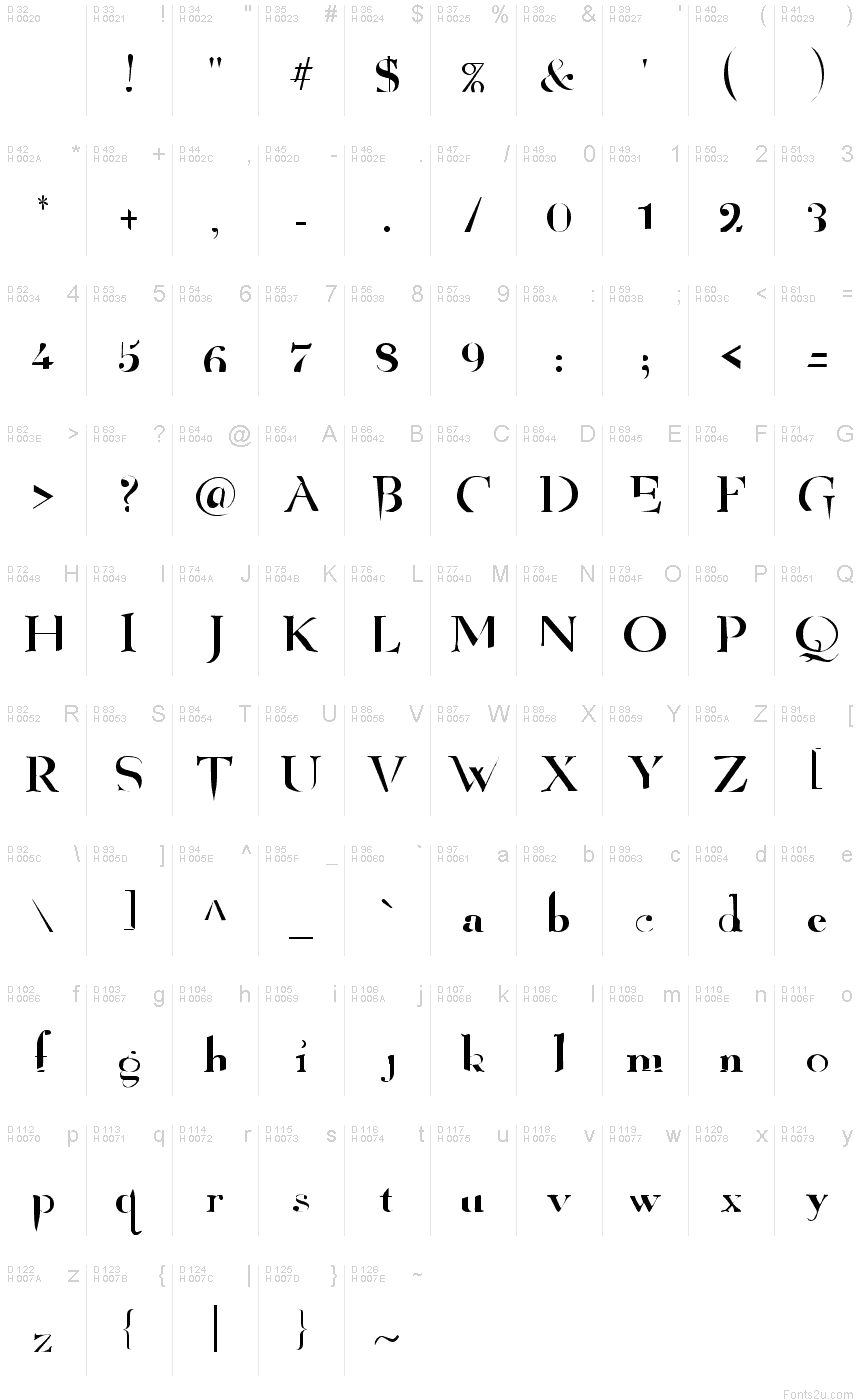
Angelized
Angelized font by ARRF Designs is a free distorted display typeface that twists classic serif elegance into something darker and more haunted. Its letters feel like they’ve been warped over time-ink blots, uneven strokes, and sudden cuts give each word a cracked, uneasy rhythm. The result is a text that looks cultured at first glance, then reveals something unsettling just beneath the surface.
Using Angelized, you get a typeface that instantly sets a moody, gothic atmosphere for horror posters, dark fantasy book covers, occult zines, band logos, game titles, and eerie event flyers. This free font shines at large sizes where its rough edges and deformed curves can really breathe; pair it with a simple geometric sans for supporting text to keep your layouts readable but still deeply atmospheric.
Inspired by Angel the TV series - Original copyright WB - recreated ARRF Designs